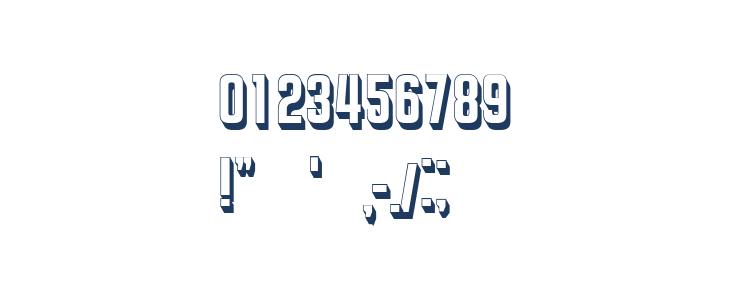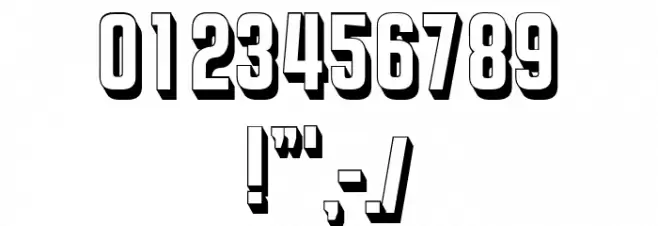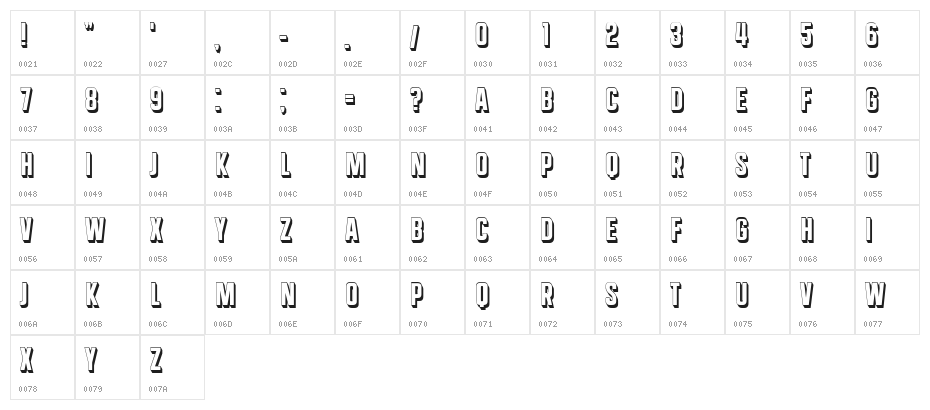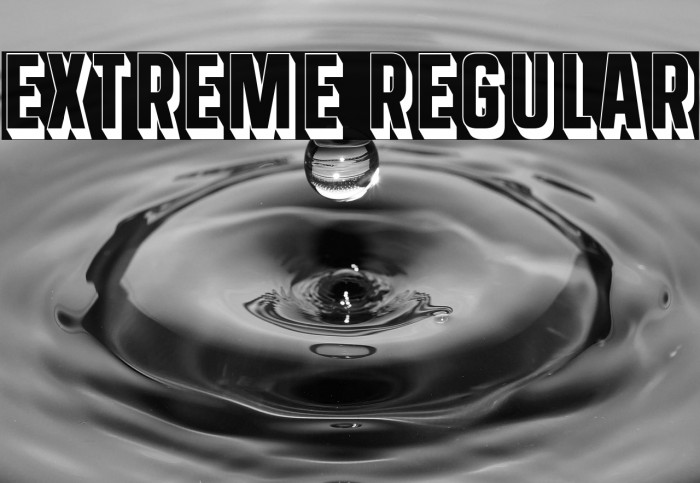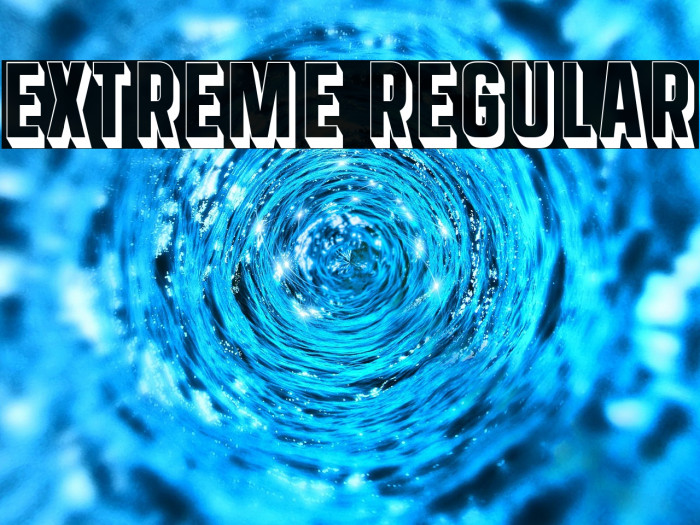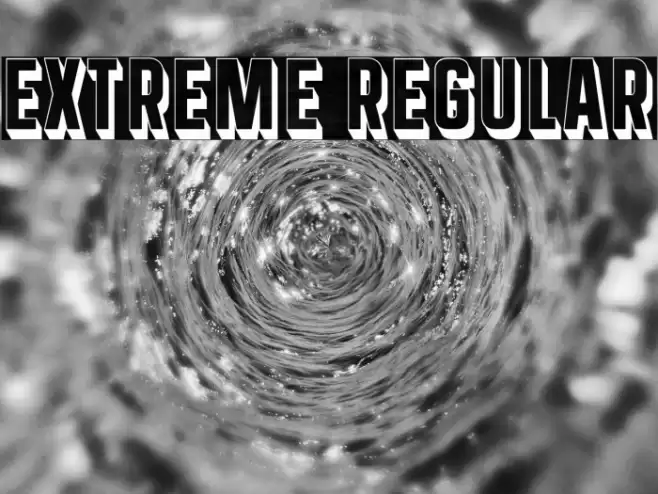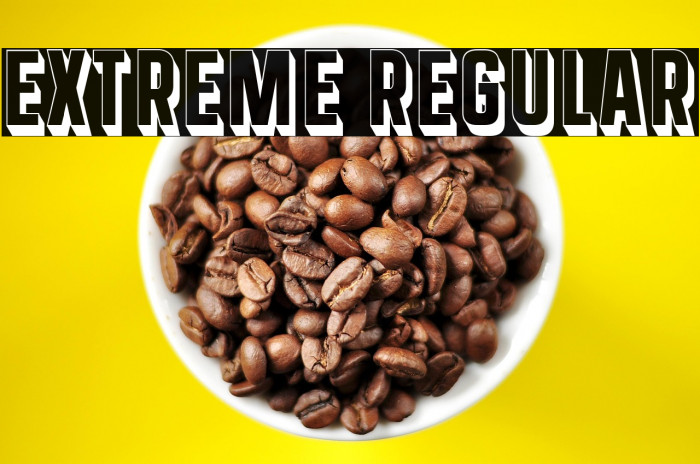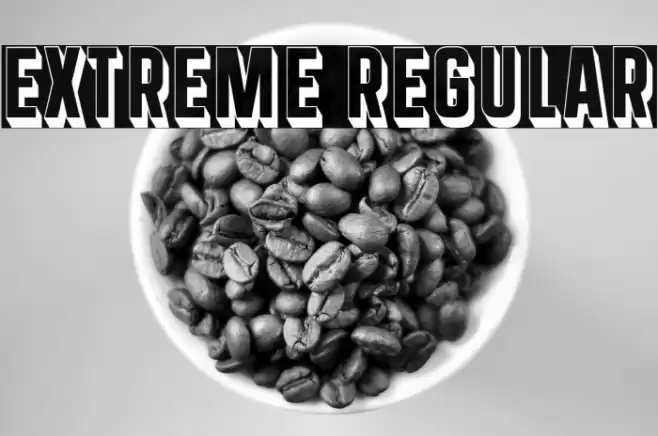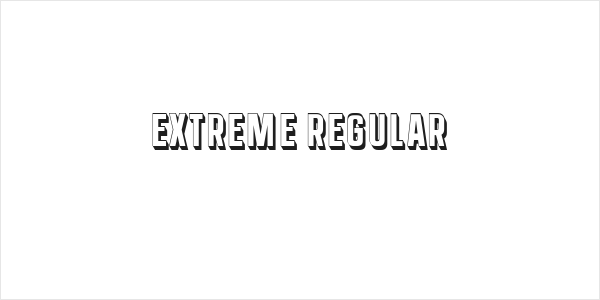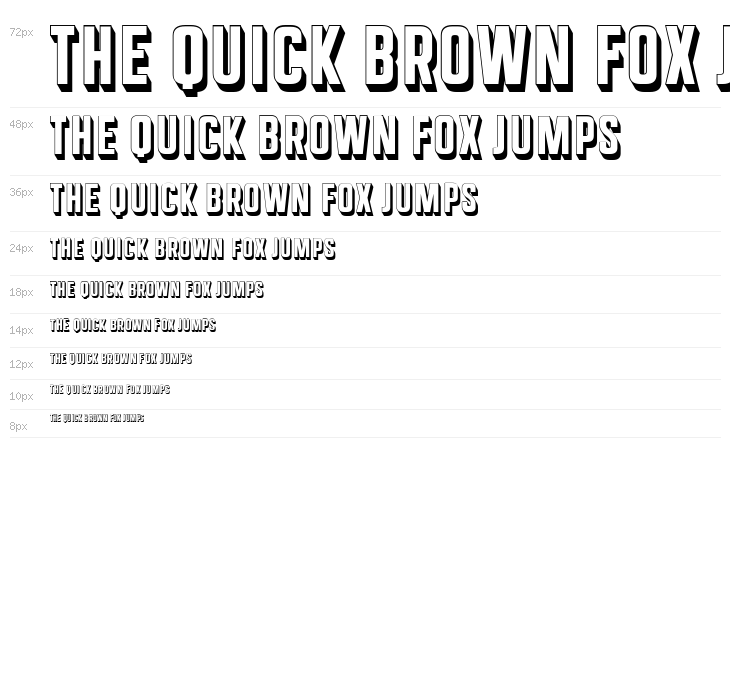
Extreme Regular Font
Extreme Regular Description
This font features a bold, impactful design with a strong 3D effect, characterized by its thick, block-like letters and shadowing that gives a sense of depth. The uppercase letters are uniform in height and width, providing a consistent and powerful appearance. The numerals and special characters maintain the same boldness and dimensionality, ensuring a cohesive look across all characters. The font's style is reminiscent of vintage signage or posters, making it ideal for projects that require a strong visual presence. Its clean lines and geometric shapes contribute to its modern yet retro aesthetic, making it versatile for various design applications.
| Proposed Projects | Ideal for posters, headlines, logos, and any design requiring a strong visual impact. |